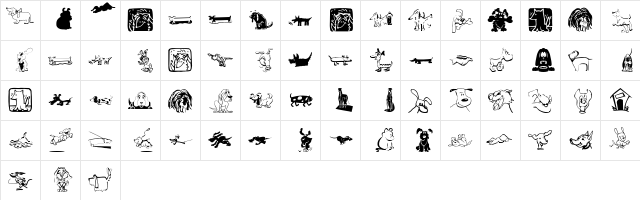
DogsDogs Regular
Design Context for DogsDogs Typeface
DogsDogs is a composed and adaptable typeface that performs quietly and consistently across a wide range of design contexts.